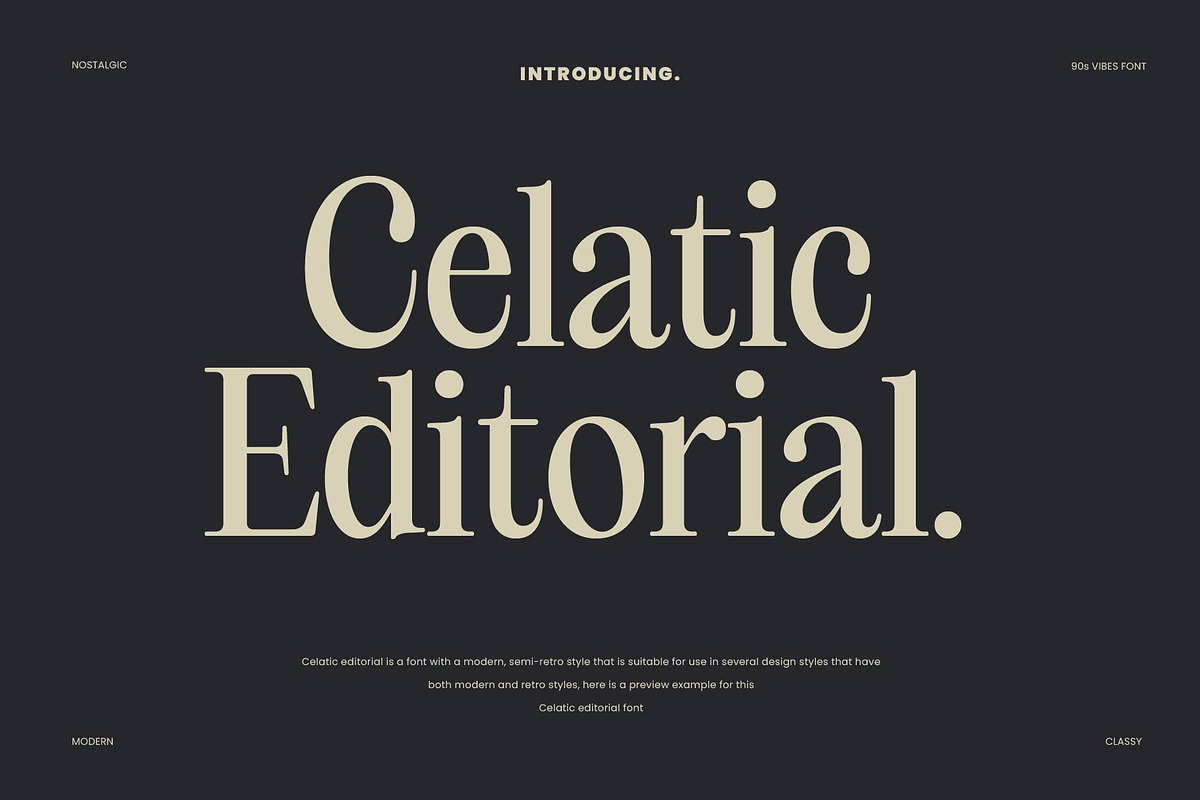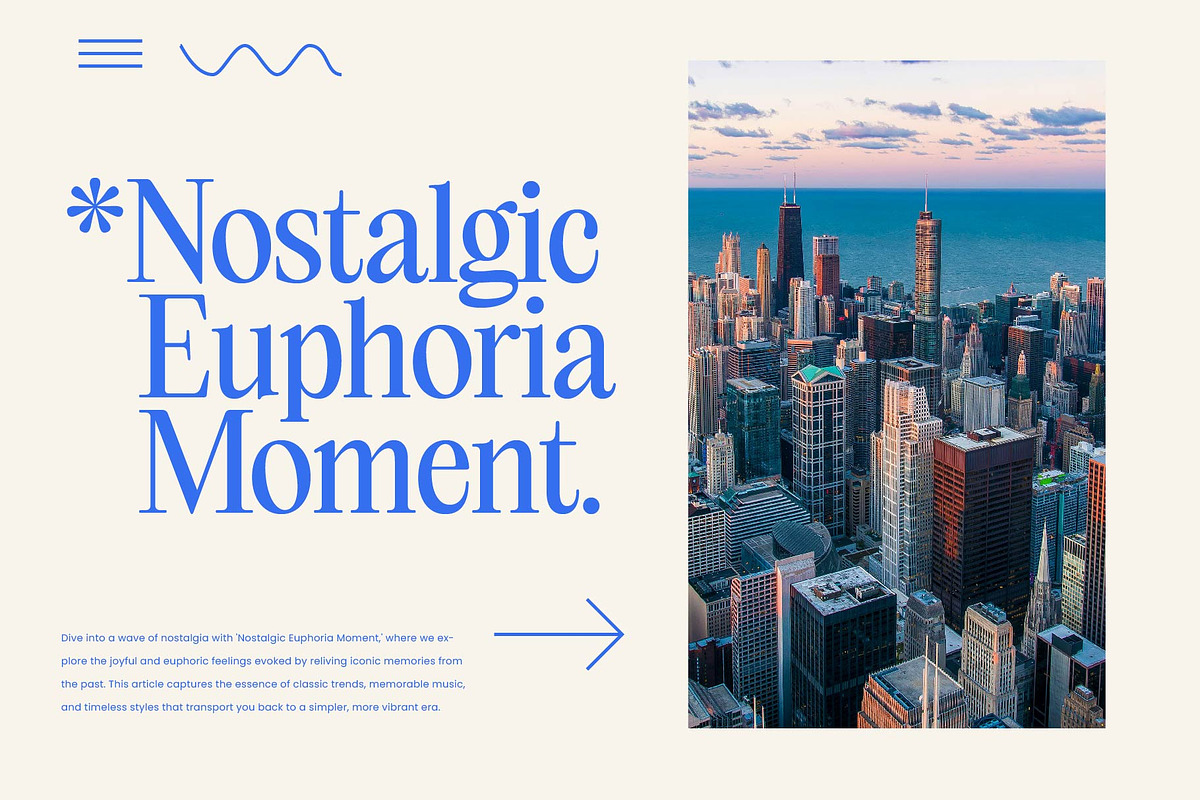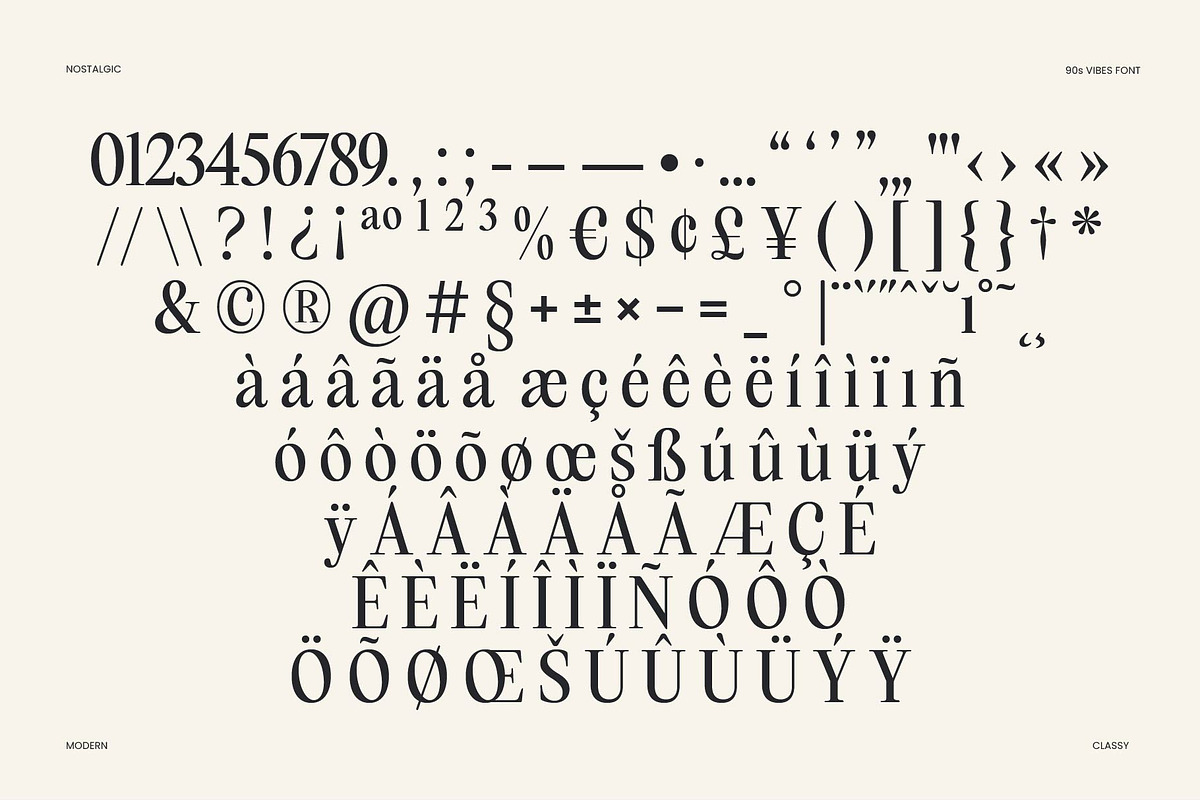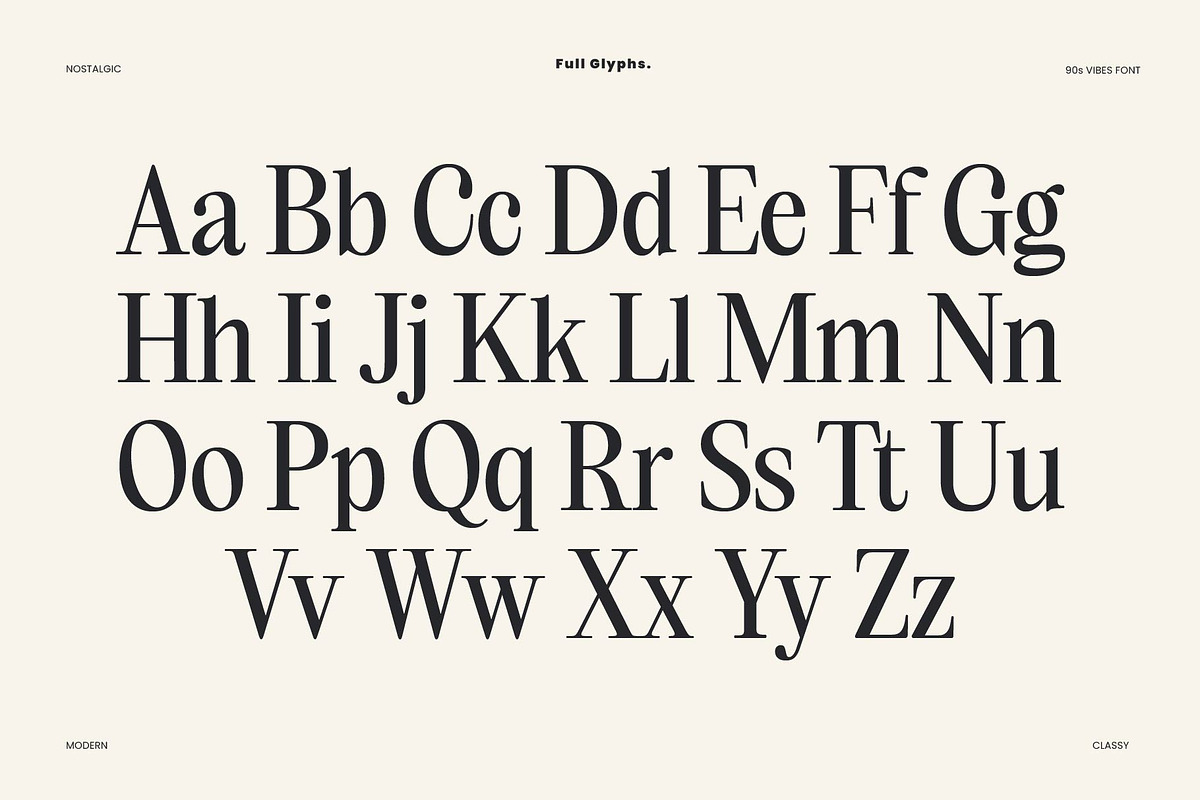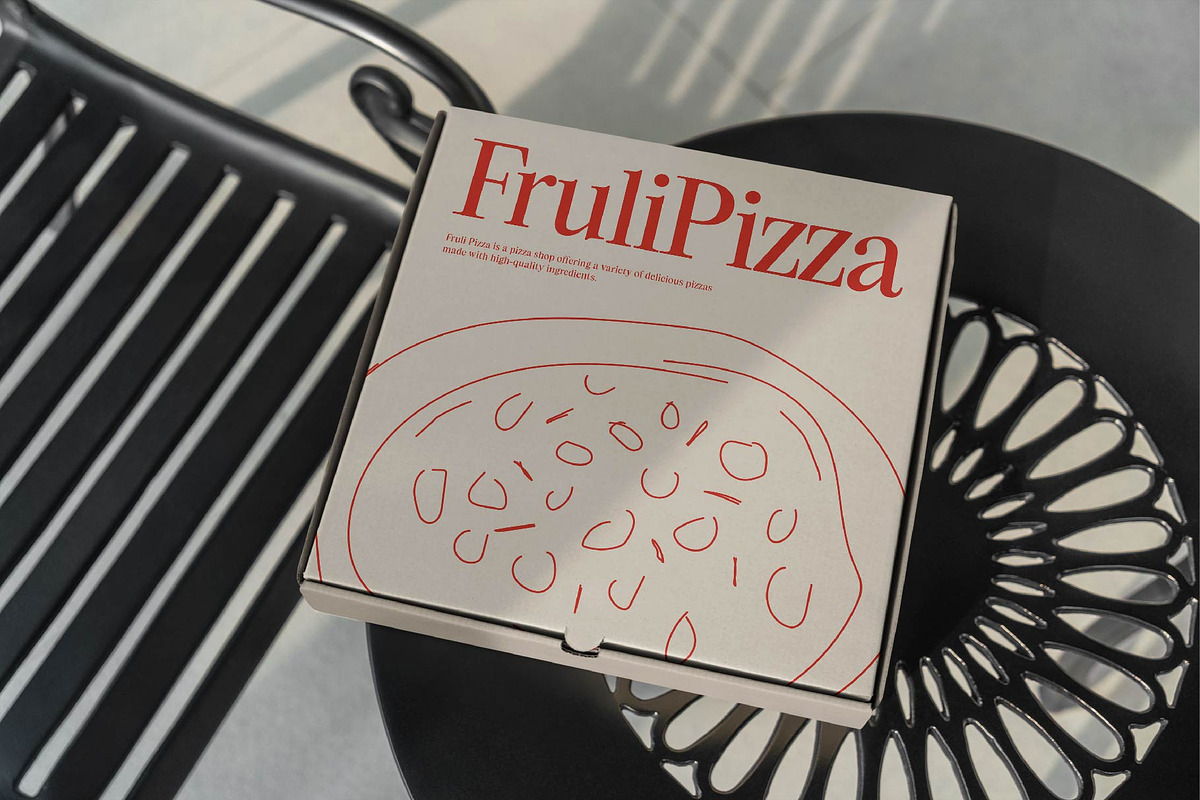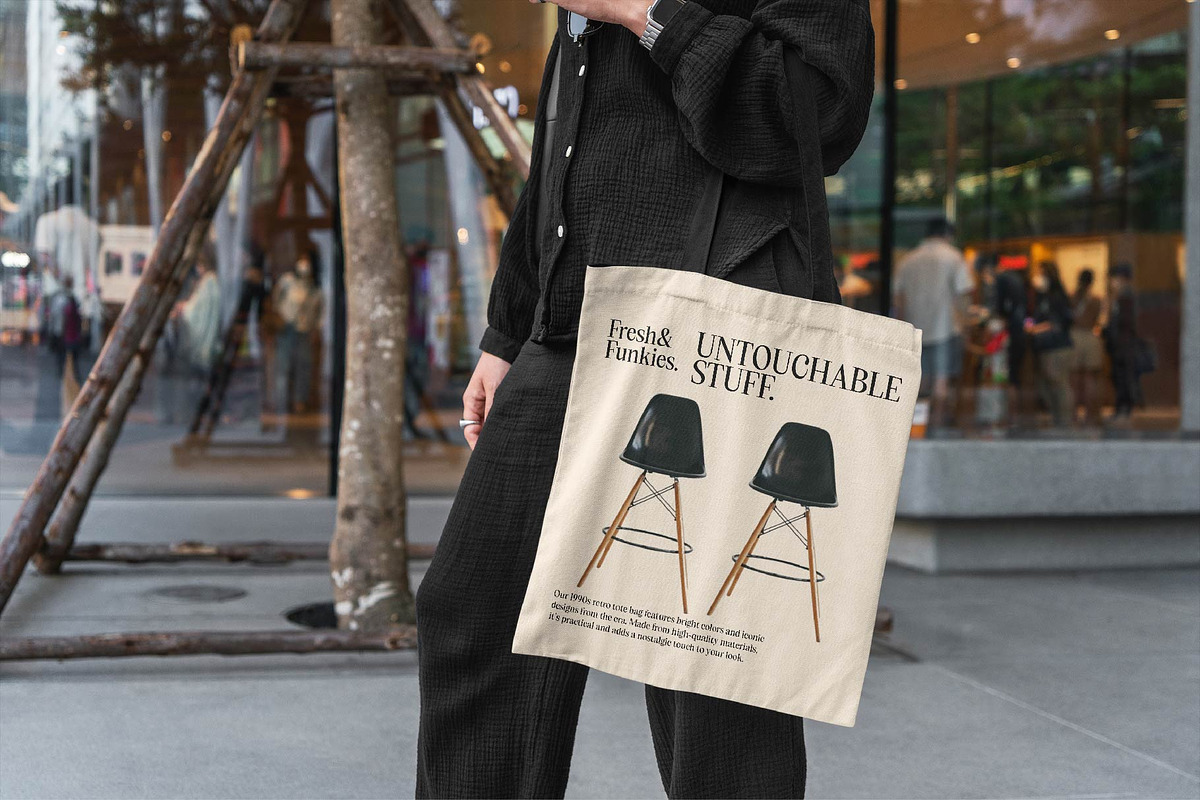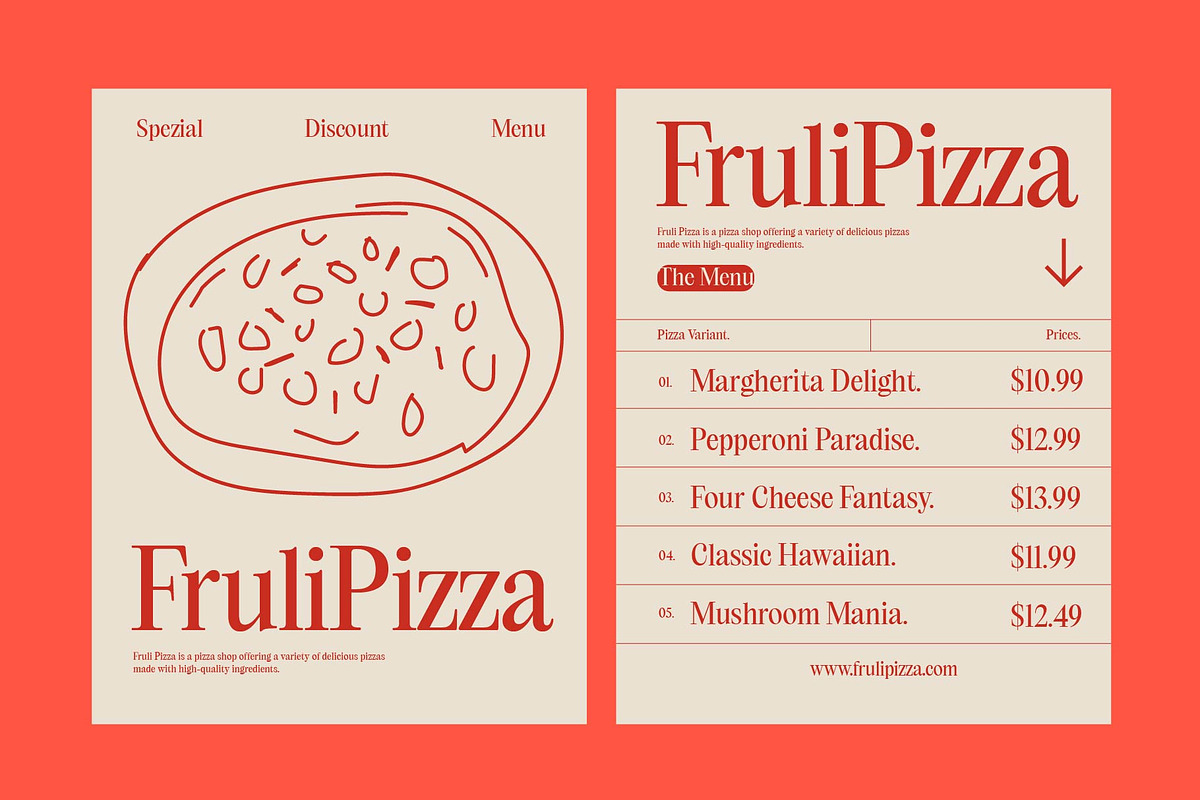
Celatic Editorial
Step into a world of sophistication with Celatic Editorial, a classy typeface that perfectly blends 90s vibes with modern elegance. This font is ideal for book titles, logos, flyers, branding, banners, crafting, and invitations. Celatic Editorial’s refined style and timeless appeal make it a versatile choice for any project, adding a touch of nostalgia and contemporary charm. Whether for print or digital use, this font ensures your designs exude a polished and stylish look.